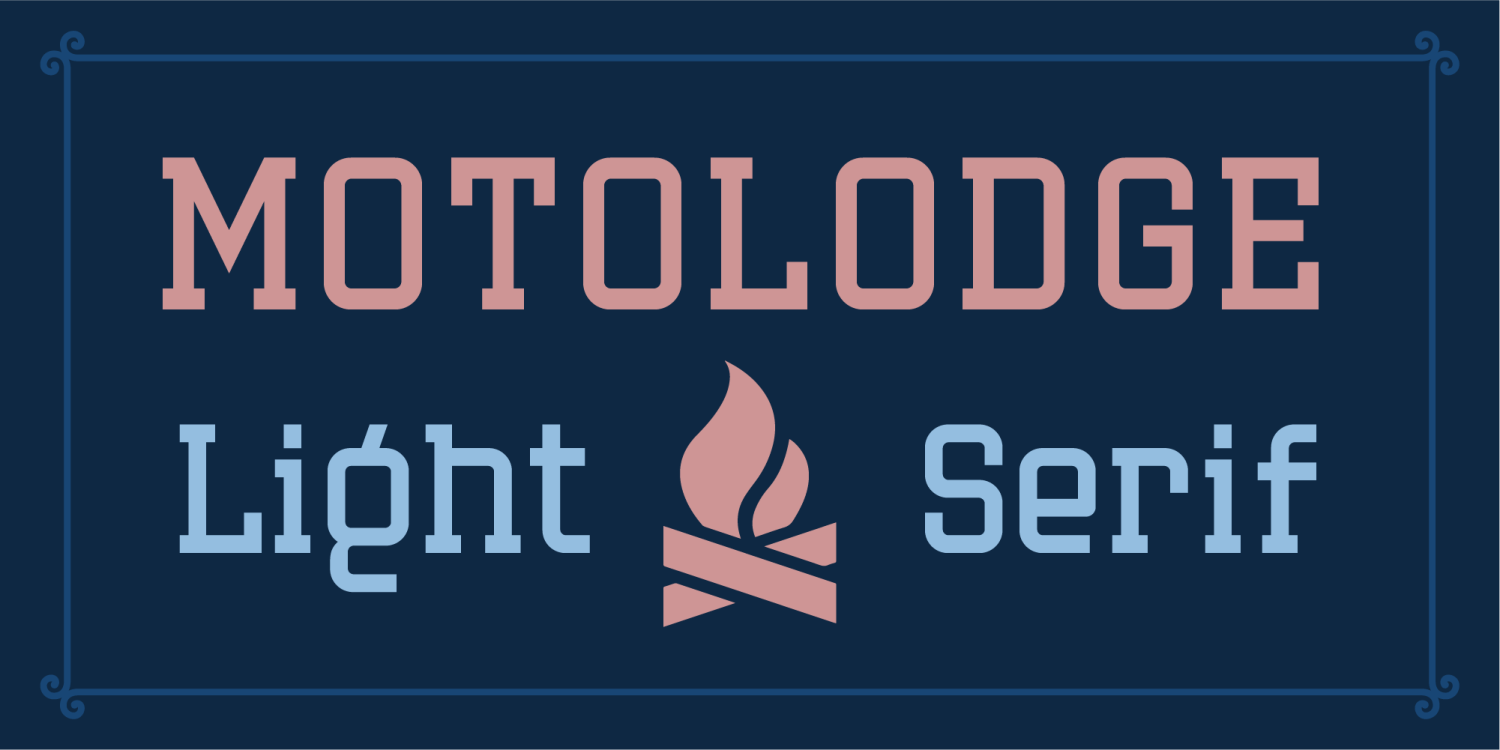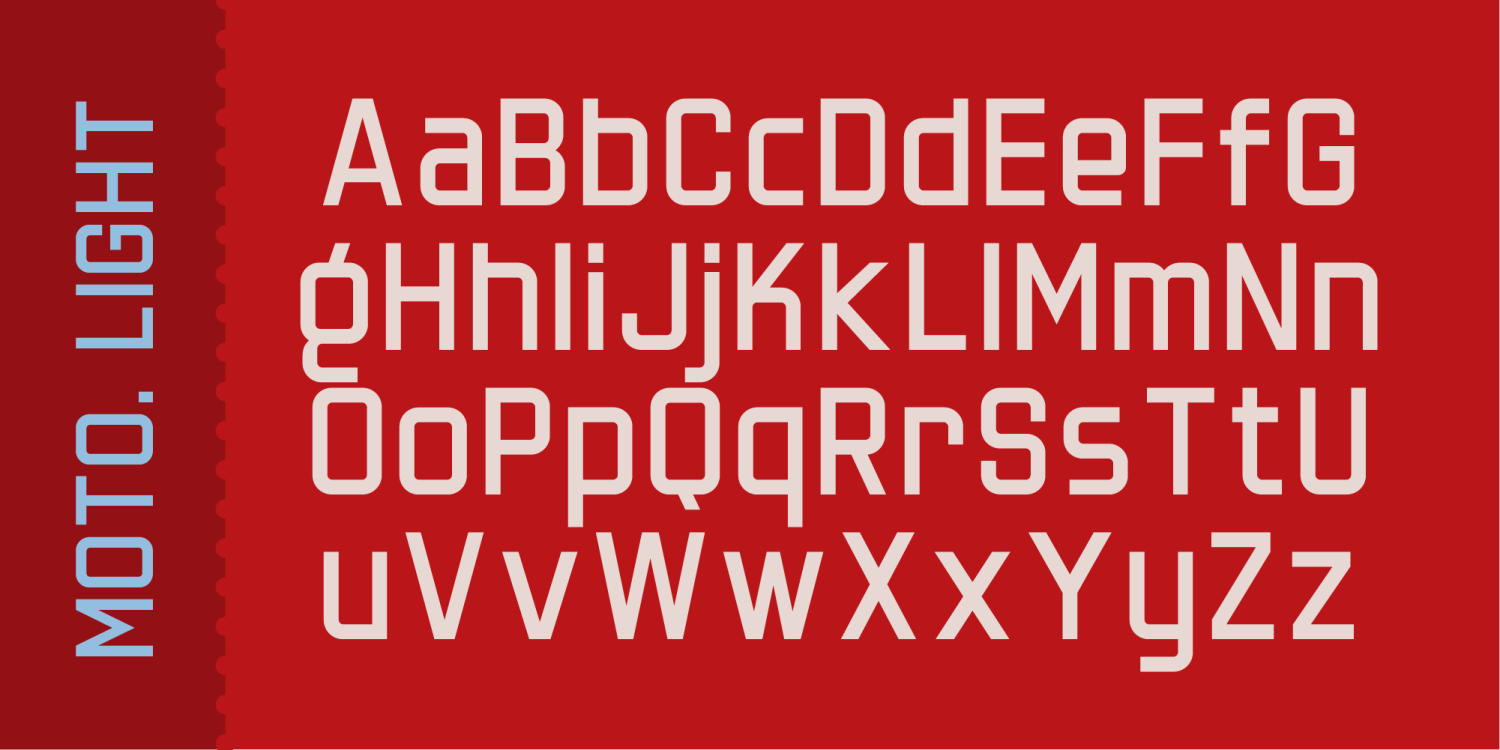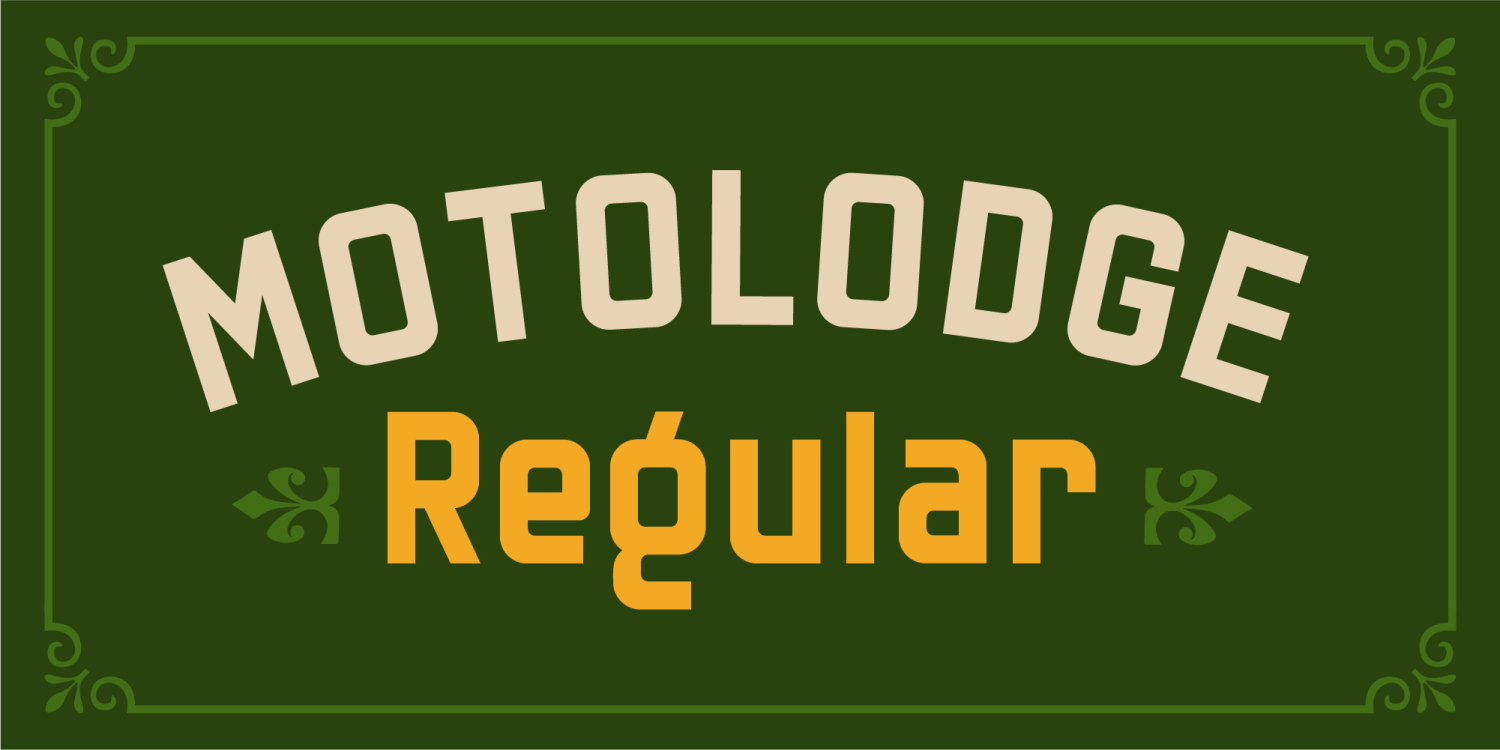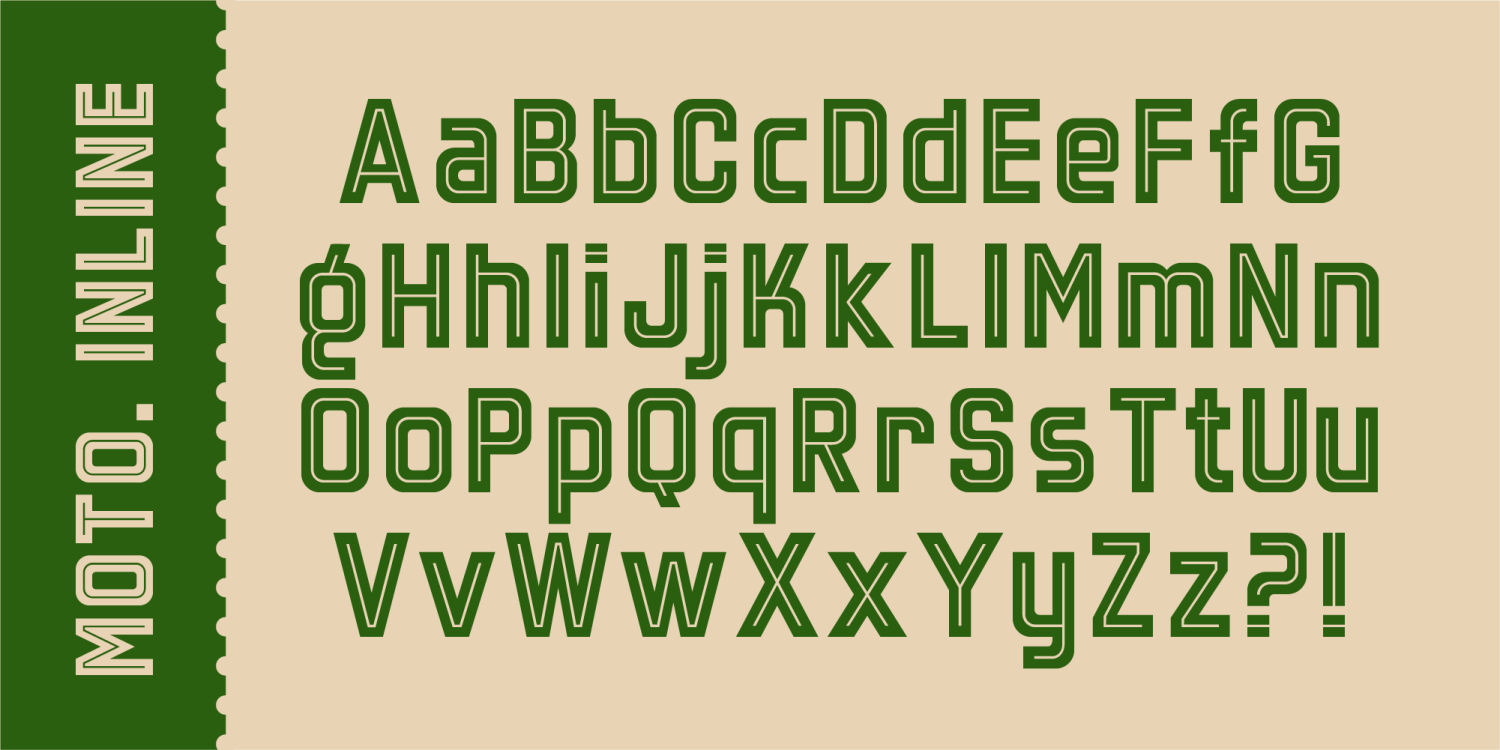
About Motolodge
Introducing Motolodge, the standard travel font straight out of classic 1950s advertising. Feel the nostalgia as Motolodge teleports you to a time when diners served up milkshakes in metal cups, and neon signs lit up the night sky like a neon-soaked dream.…